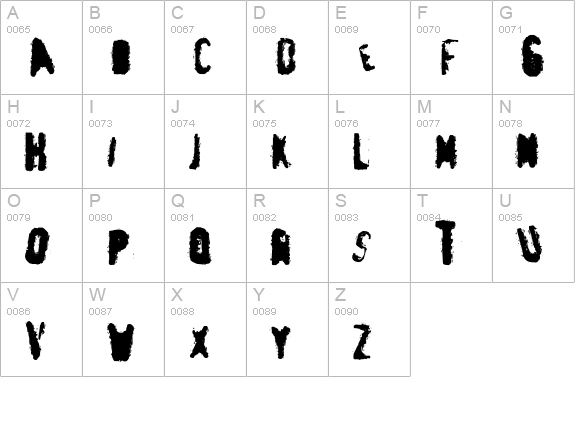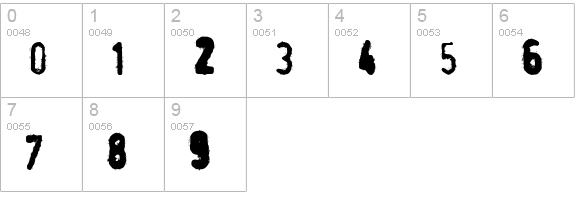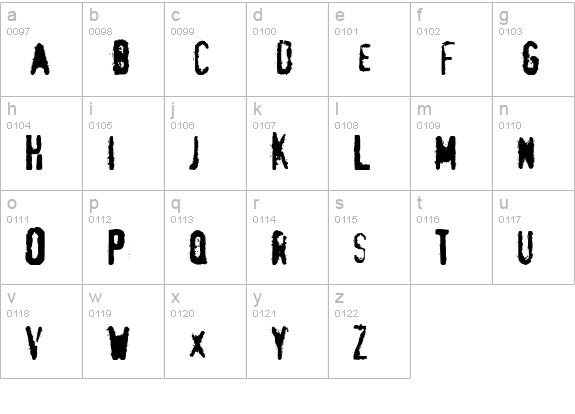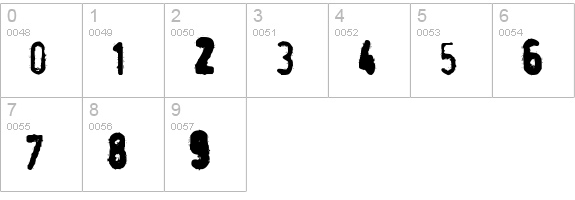
pRint Fuck 151 Font Details
pRint Fuck 151 font is a bold and edgy display typeface that demands attention with its unique and distinctive style. Designed with sharp angles and exaggerated strokes, this font is perfect for making a statement in your designs. Whether you're working on a logo, poster, or any other creative project, pRint Fuck 151 font will add a touch of personality and attitude. The best part? pRint Fuck 151 font is available for free download at FontsMarket.com. You can easily access this eye-catching font and use it in your projects without any cost. Embrace the boldness of pRint Fuck 151 font and elevate your designs with its striking presence. Download it now and let your creativity shine!